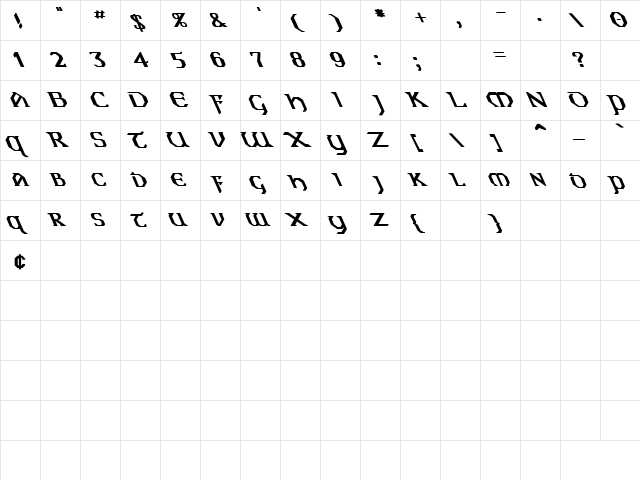
Eire Extreme Lefty Bold
Design Context for Eire Extreme Lefty Typeface
Eire Extreme Lefty is a composed and adaptable typeface that performs quietly and consistently across a wide range of design contexts. The heavy weight commands attention and anchors typographic hierarchies.